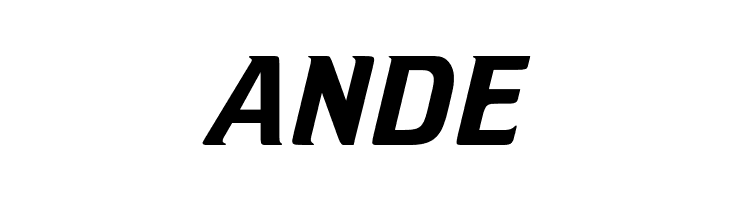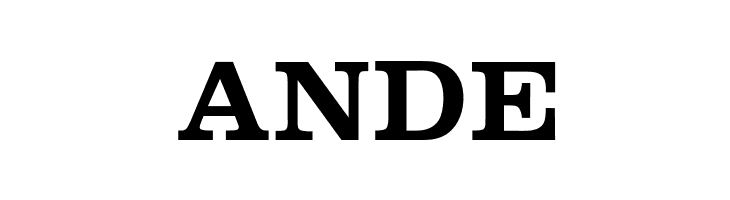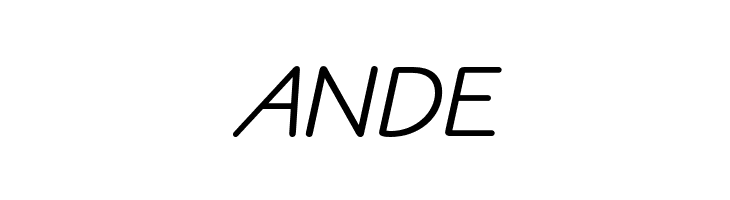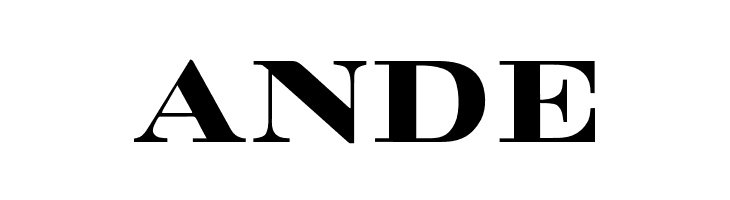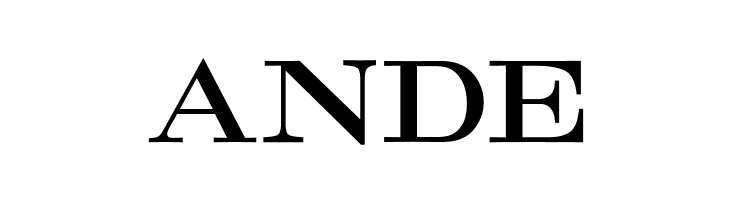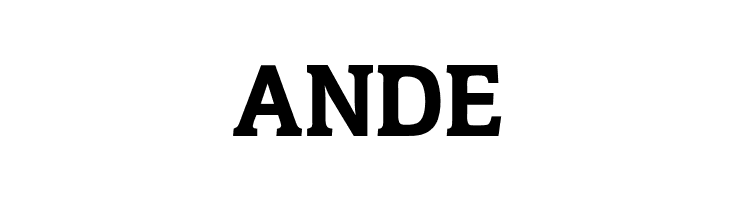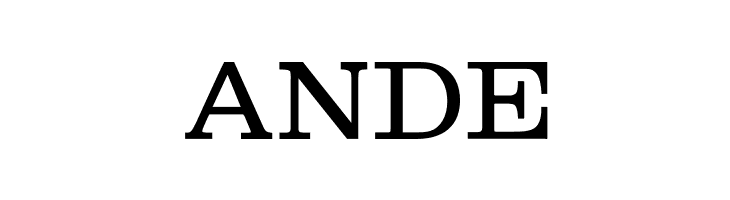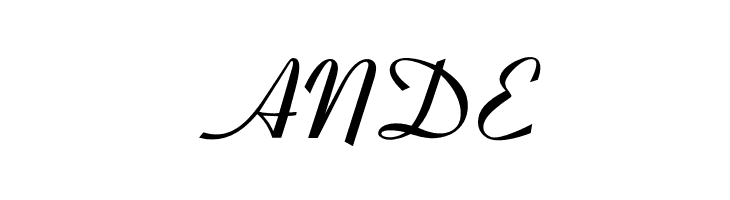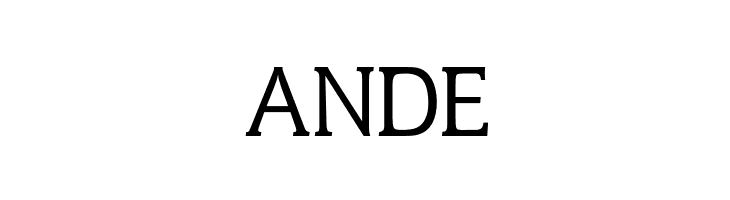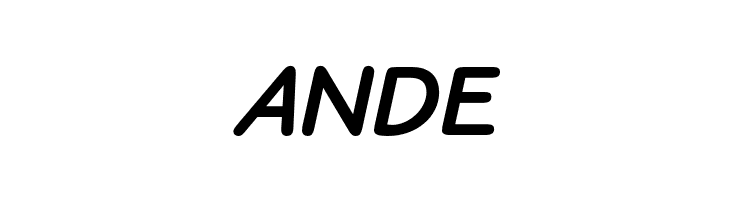
A bold, classic serif font with strong, pronounced serifs and a traditional appearance.
A classic serif font with elegant, thin strokes and a sophisticated appearance.
A bold serif font with strong, thick strokes and sharp serifs.
A classic serif font with outlined letters and a modern, elegant style.
A classic serif font with elegant lines and moderate contrast, ideal for formal use.
An elegant and flowing script font with sophisticated curves and loops.
A bold, italic font with tight spacing and a modern, dynamic style.
A bold, condensed font with high contrast and a modern style.
A bold, impactful typeface with strong strokes and tight spacing.
A bold, outlined font with uniform width and strong presence.
A bold, impactful serif font with strong strokes and a modern twist.
A bold, high-contrast serif font with a classic and authoritative style.
Bold, shadowed font with a modern and decorative style.
A modern sans-serif font with clean lines and balanced proportions.
A bold, italicized font with a smooth, flowing style.
A sleek, italicized font with a modern and fluid design.
A bold, modern font with clean lines and a professional appearance.
A bold, serif font with a classic and authoritative style.
A clean and elegant font with a modern twist, featuring well-defined characters and slight contrast.
A bold, serif font with strong vertical emphasis and sharp serifs.
A refined serif font with high contrast and elegant, elongated strokes.
A bold, high-contrast font with elegant, dramatic strokes and a classic yet modern appeal.
A sophisticated serif font with medium weight and italic style, featuring high contrast strokes.
A bold, elegant font with tall, narrow characters and high contrast strokes.
A bold serif font with strong strokes and modern elegance.
A modern serif font with clean lines and balanced proportions.
An elegant script font with fluid, cursive strokes and a sophisticated appearance.
A dynamic and elegant script font with flowing, cursive letterforms.
A classic slab serif font with bold, block-like serifs and a strong presence.
A classic slab serif font with bold, well-defined letterforms and strong vertical stress.
A modern serif font with elegant strokes and medium contrast.
A bold, high-contrast serif font with pronounced serifs and elegant style.
A bold, italicized font with strong, angular lines and a dynamic slant.
A modern, italicized font with sleek, consistent strokes and a dynamic appearance.